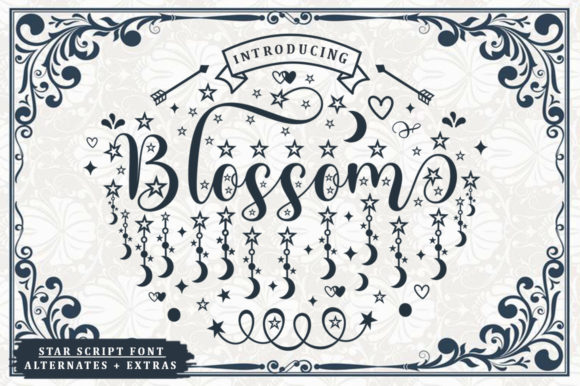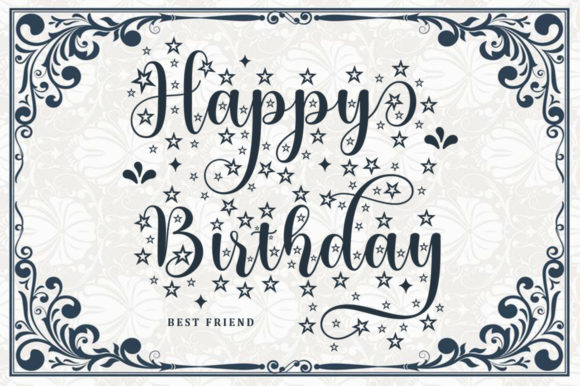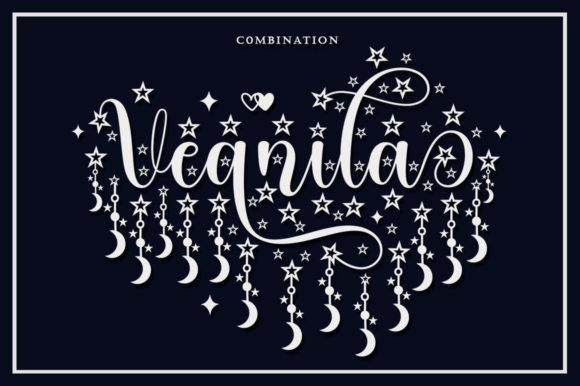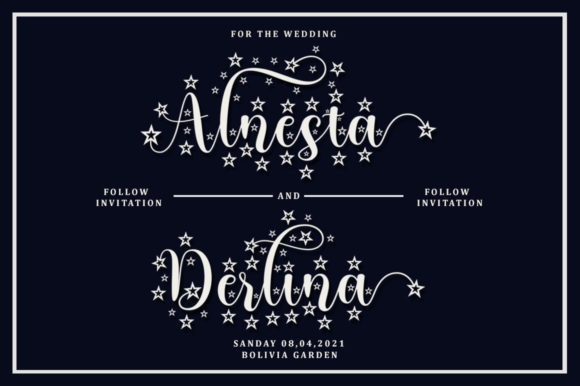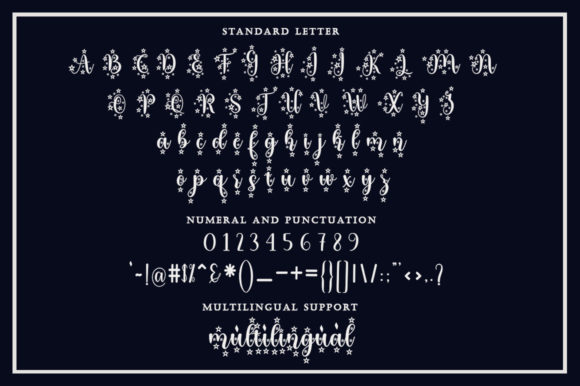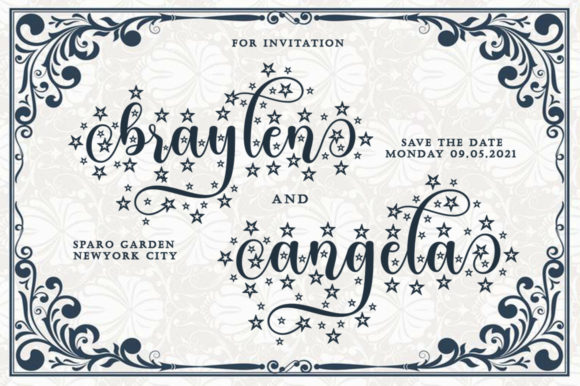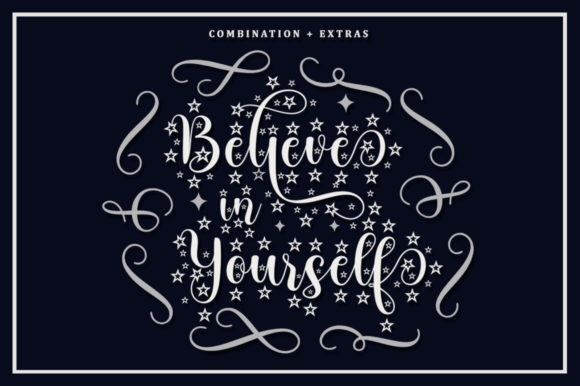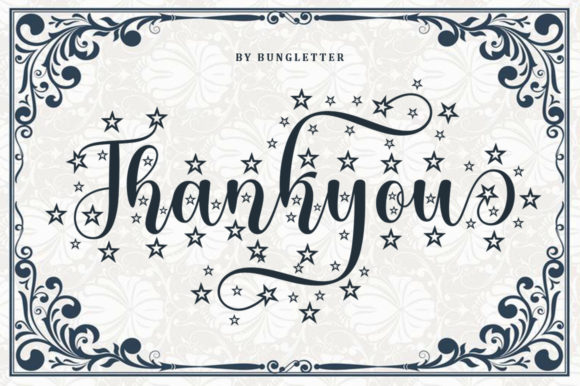
Blossom Font Font
Blossom is a lovely and delicate script font that exudes elegance and class. It is neatly crafted and highly detailed. Blossom is PUA encoded which means you can access all of the amazing glyphs and ligatures with ease!